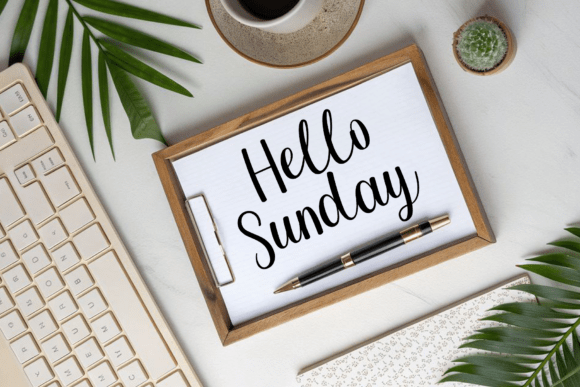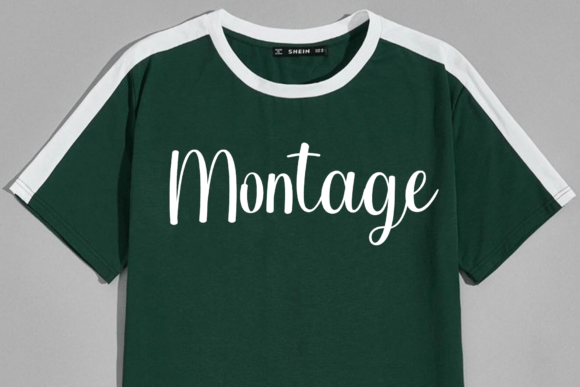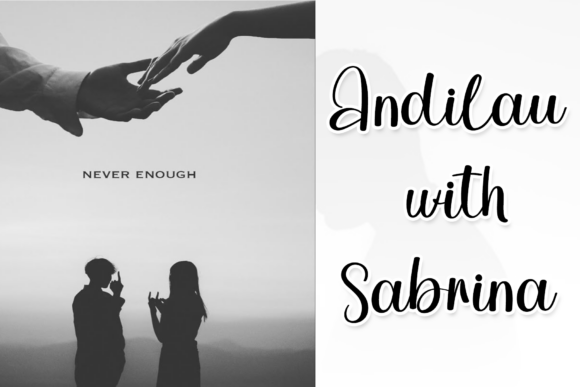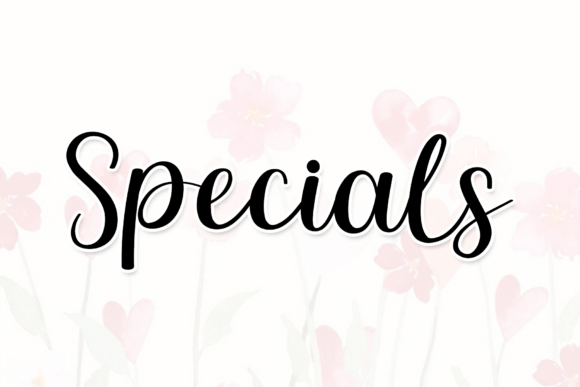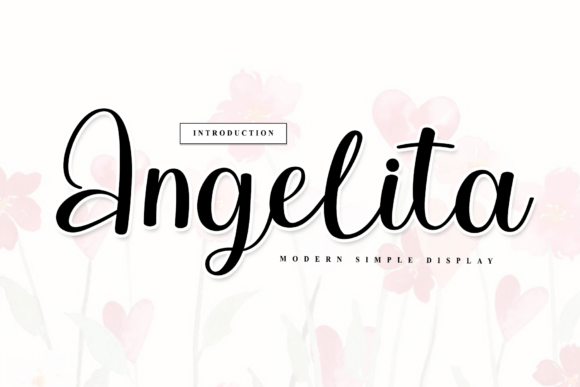
Discover the Warmth of Angelita Font: A Friendly Family Favorite
I’ll never forget the design project that led me to fall in love with Angelita Font. I was working on a branding campaign for a cozy family restaurant, and I was struggling to find the perfect font that conveyed warmth, comfort, and a sense of community. That’s when I stumbled upon Angelita, and it instantly felt like the perfect fit. With its friendly presence and inviting vibe, this font has become a staple in my design toolkit.
A Balanced Beauty: Thick Strokes Meet Organic Rhythm
Angelita Font masterfully balances the thick, high-impact strokes of a display face with the organic, bouncy rhythm of a casual script. This unique blend creates a sense of reliability and comfort, making every word feel like a warm invitation. The rounded terminals and steady baseline add to its charm, making it perfect for family-oriented branding, cozy cafe logos, children’s book titles, and community event posters.
My Honest Review: The Good and the Quirks
Here’s what I love about Angelita Font:
- ✨ Friendly and approachable vibe that’s perfect for family-focused brands
- âś… Balances thick strokes with organic rhythm for a unique look
- đź’• Rounded terminals and steady baseline for added comfort and reliability
- 🎉 Highly legible, even at smaller font sizes
And here are some minor quirks to consider:
- 🤔 Some characters may appear a bit narrow, so kerning might be necessary for optimal spacing
- ⚠️ Limited availability of extended language support
The Story Behind Angelita Font: A Designer’s Inspiration
Angelita Font was designed with the intention of creating a friendly, approachable typeface that would make readers feel like they’re getting a warm hug. The designer aimed to balance the boldness of a display font with the playfulness of a script, resulting in a unique and inviting font that’s perfect for family-focused projects.
Q: What makes Angelita Font so special?
A: Angelita Font’s unique blend of thick strokes and organic rhythm creates a sense of reliability and comfort, making it perfect for family-oriented branding and cozy projects.
Q: Is Angelita Font suitable for body text?
A: While Angelita Font is highly legible, it’s best suited for headlines, titles, and short paragraphs. For longer body text, consider pairing it with a complementary font for optimal readability.